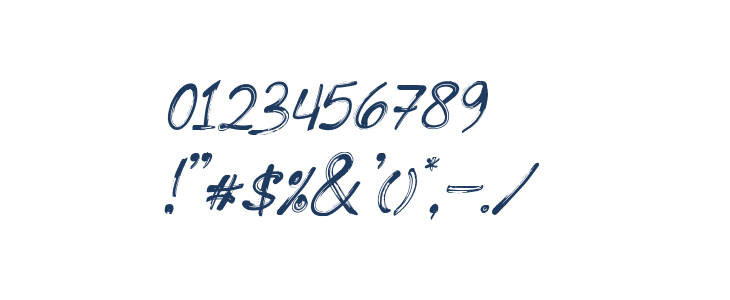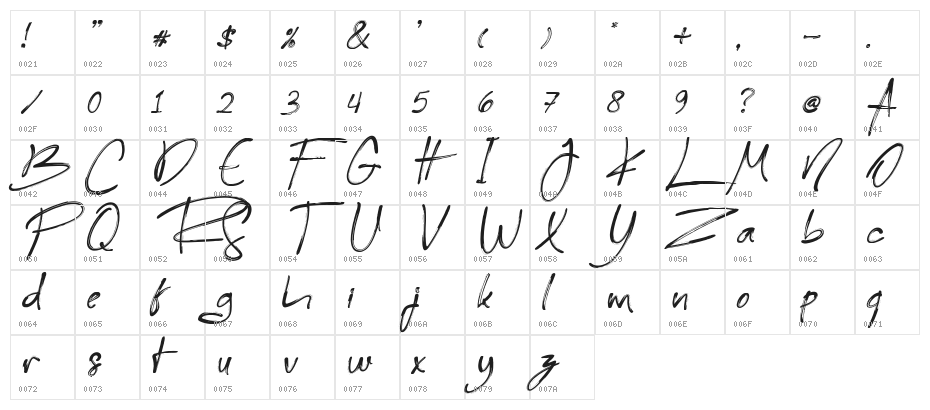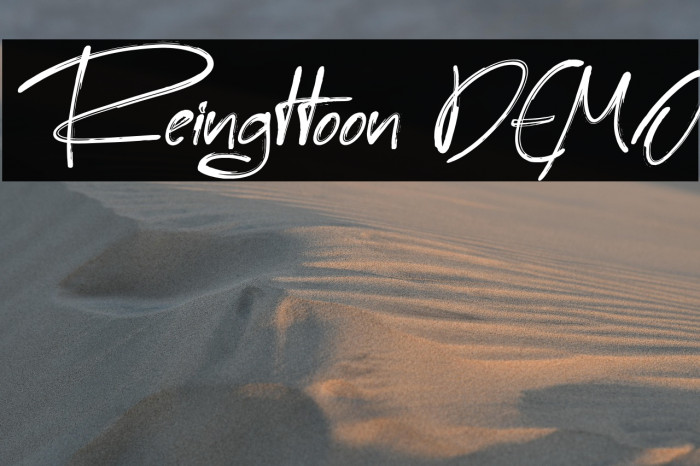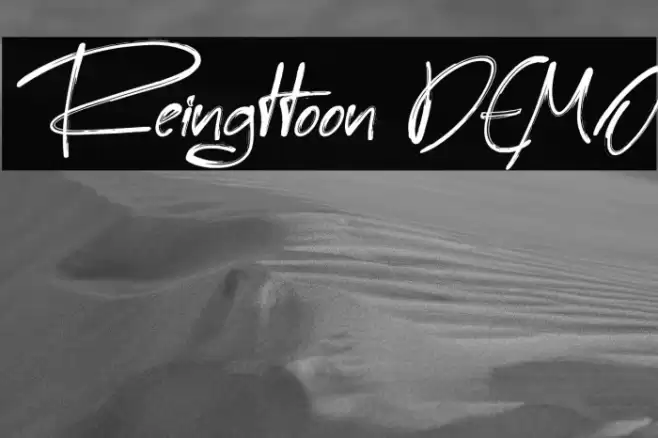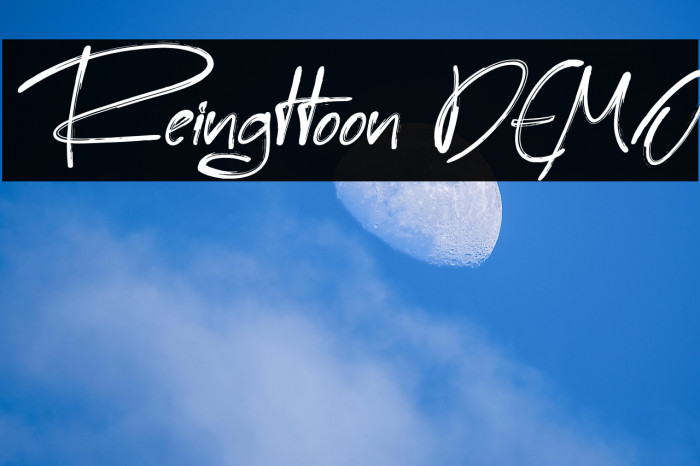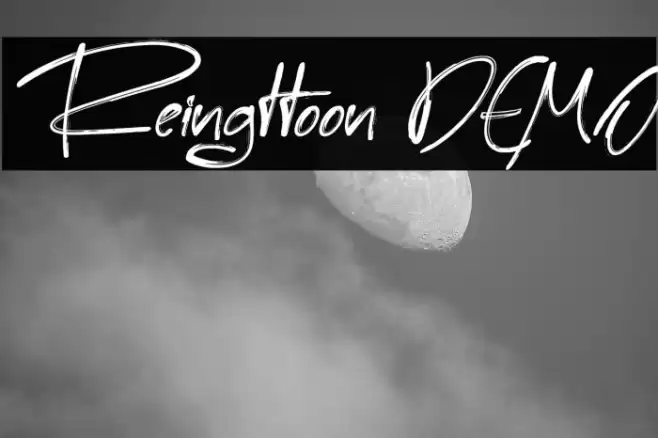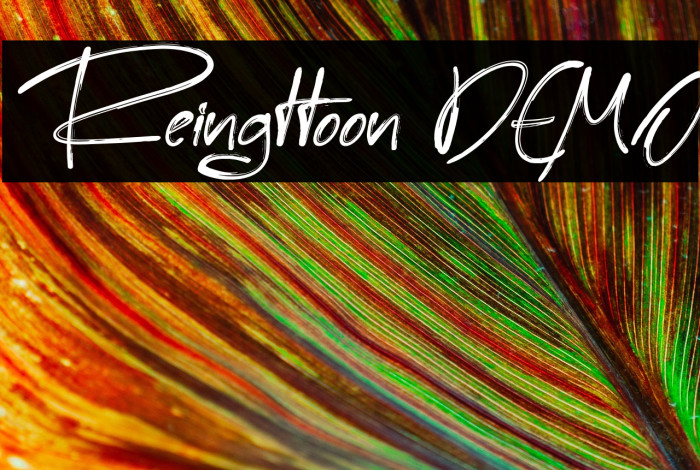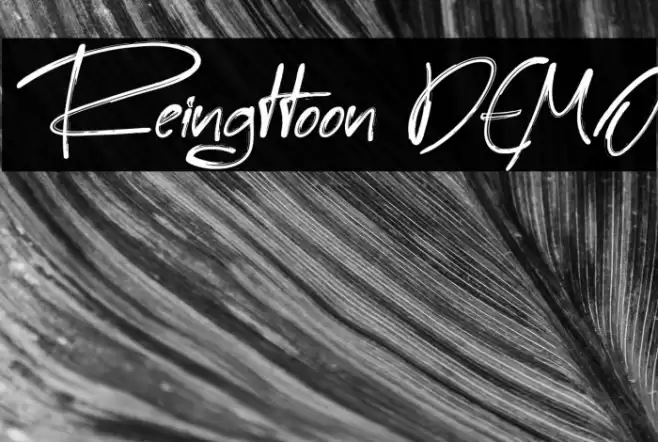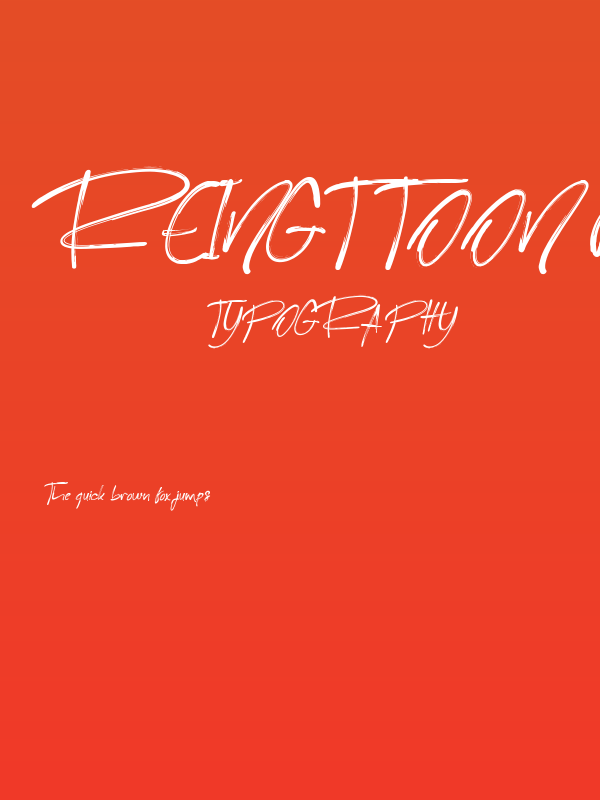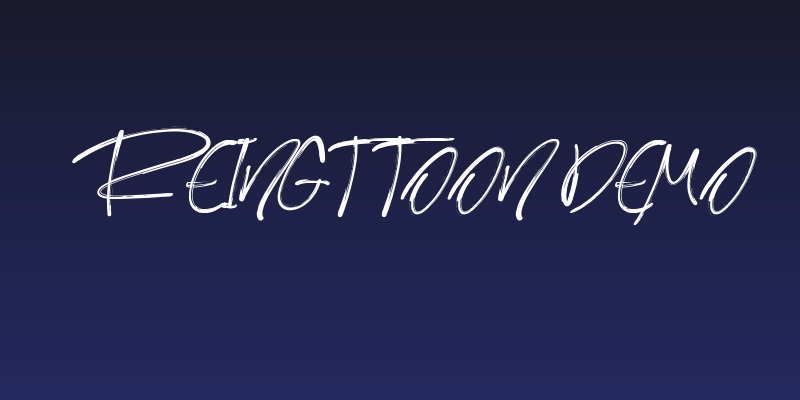
Reingttoon DEMO Font
Reingttoon DEMO Description
This font features a dynamic and expressive handwritten style, characterized by its fluid strokes and energetic appearance. The letters are crafted with a sense of motion, giving them a lively and spontaneous feel. The uppercase and lowercase letters maintain a consistent style, with some variations in stroke thickness that add to the overall vibrancy. The numbers and special characters are equally expressive, complementing the alphabet with their bold and artistic flair. This font is perfect for projects that require a personal touch or a creative edge.
| Proposed Projects | Ideal for creative projects such as invitations, posters, branding, and social media graphics. |